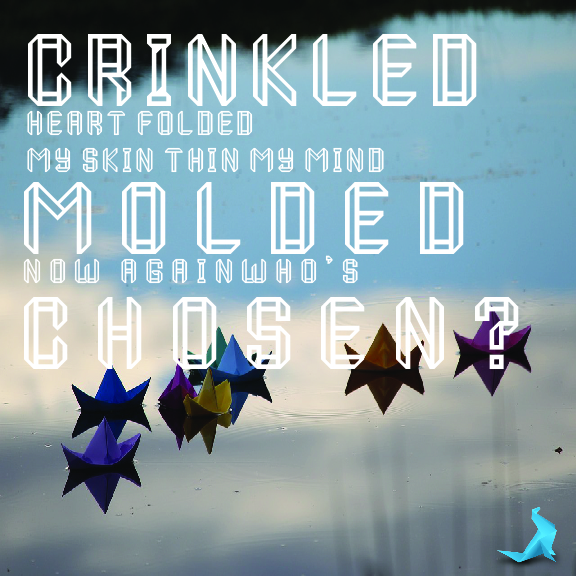
• Created with the the art of Origami and Digital clocks in mind, FontiGami, hopes to showcase folds of paper in a similar grid of a digital clock.
FontiGamiby Bjfrazier